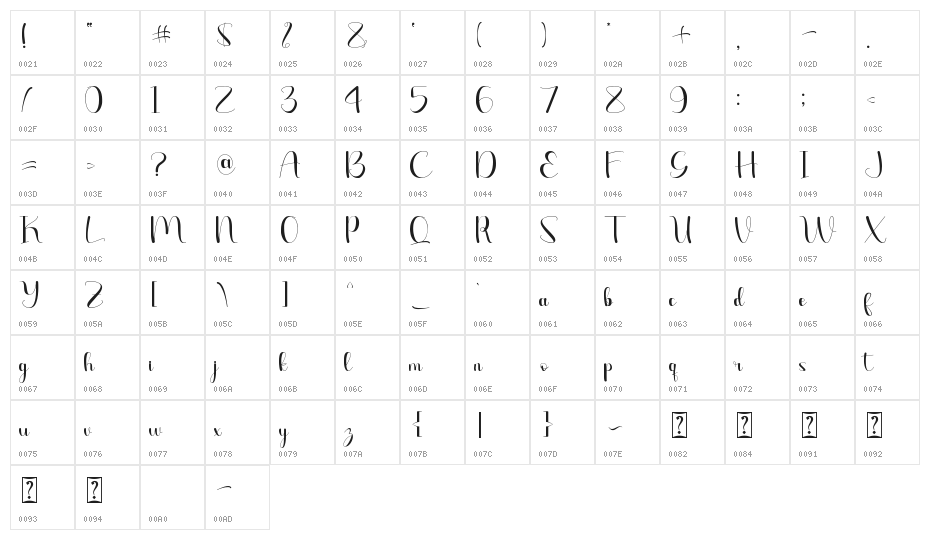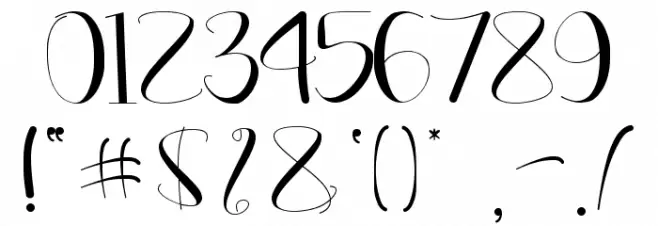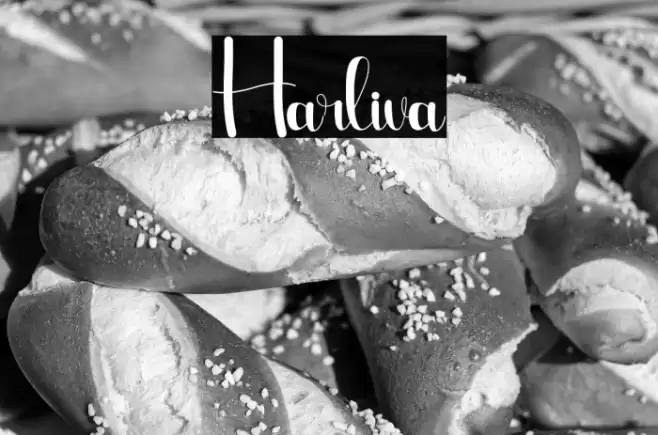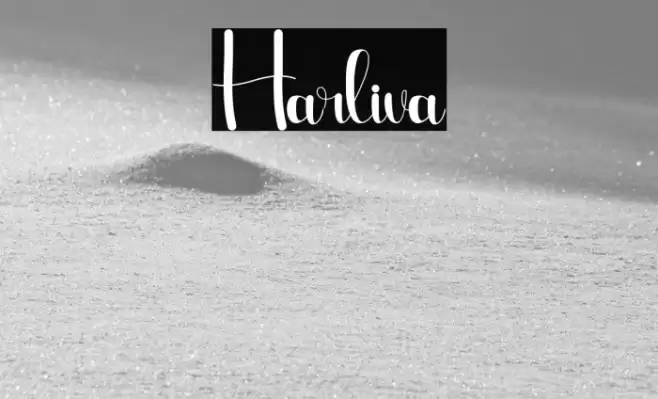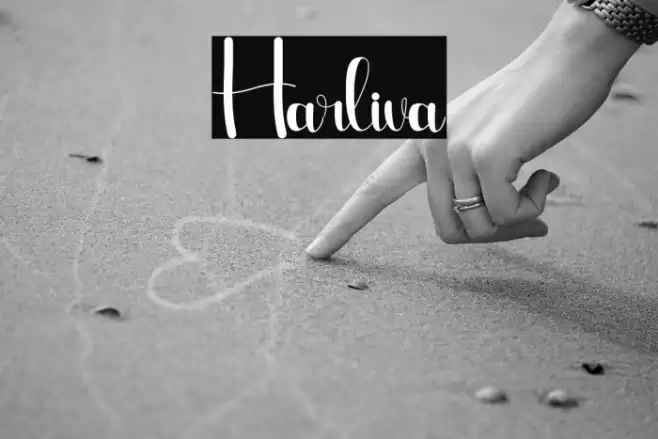
Harliva Font
Harliva Description
This font features an elegant and flowing script style, characterized by its smooth, cursive lines and graceful curves. The uppercase letters exhibit a sophisticated flair, with elongated strokes and subtle flourishes that add a touch of refinement. The lowercase letters maintain a consistent fluidity, enhancing readability while preserving the font's artistic nature. Numbers and special characters are designed with the same attention to detail, ensuring a cohesive look across all text elements. The overall design exudes a sense of elegance and charm, making it suitable for projects that require a touch of sophistication.